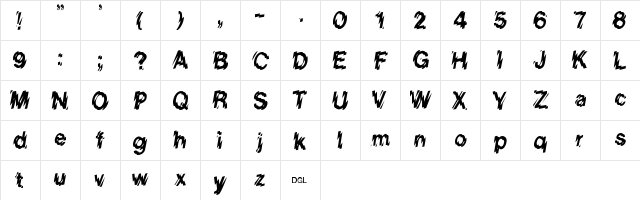
Glass Houses Regular
| Foundry | Digital Graphic Labs |
| Designer | Digital Graphic Labs |
Design Context for Glass Houses Typeface
Glass Houses is a composed and adaptable typeface that performs quietly and consistently across a wide range of design contexts.